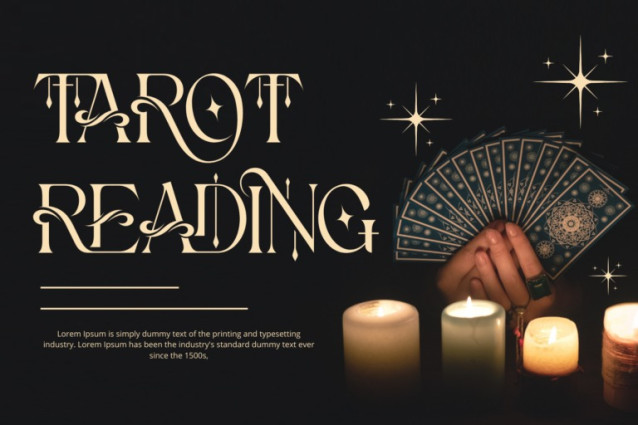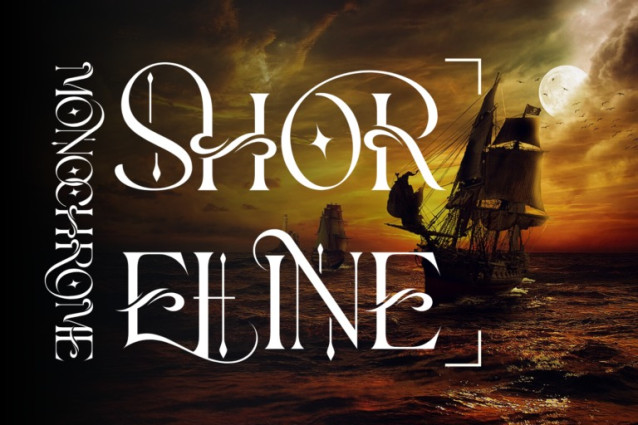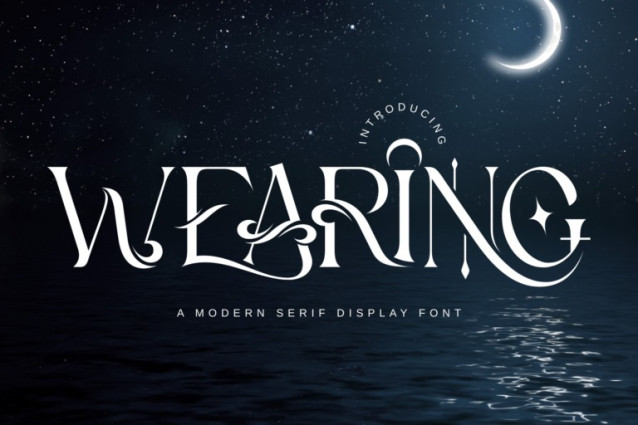
Wearing Font
Wearing Font – An Elegant Modern Serif Display Font, a sophisticated modern serif display font that blends timeless elegance with a contemporary flair. Designed to captivate, this typeface features beautifully crafted uppercase and lowercase letters, complemented by over 100 unique ligatures and stylistic alternates that bring artistry and charm to every word.
With its graceful curves and sharp contrasts, Wearing is ideal for branding, luxury packaging, editorial headlines, wedding invitations, and high-fashion design. The font also includes numerals, punctuation, and multilingual accented characters, making it both versatile and expressive.
Let your designs speak with confidence and style through Wearing — where classic beauty meets modern creativity.
Features:
✔ Uppercase Letters
✔ Approximately 100 Special Ligatures for seamless typography
✔ Numerals & Punctuation for versatile applications
✔ Accented Characters to support multiple languages
About 100 ligatures combined with Stylistic Alternates Font:
AC AD AL AN AR AS AT AU AV BE CA CE CH CO CT DE DI EA EC ED EE EL EM EN EP ER ES ET FE FO FR GE HA HE HI HO IE IC IL IN IO IR IS IT JU KE LA LE LI LL LO LY MA ME MI NC ND NE NG NO NT NS OC OF OM ON OO OP OR OT OU OW PA PR RA RD RE RI RO RS RT SE SH SI SO SS ST TA TE TH TI TO TR TT UM UN UR VE WI WO